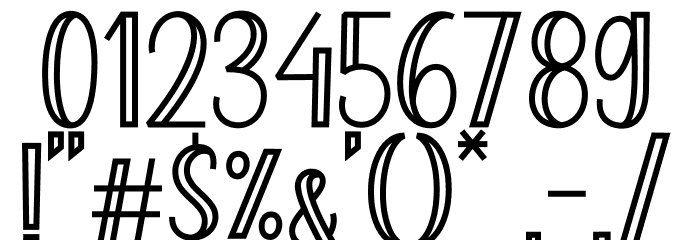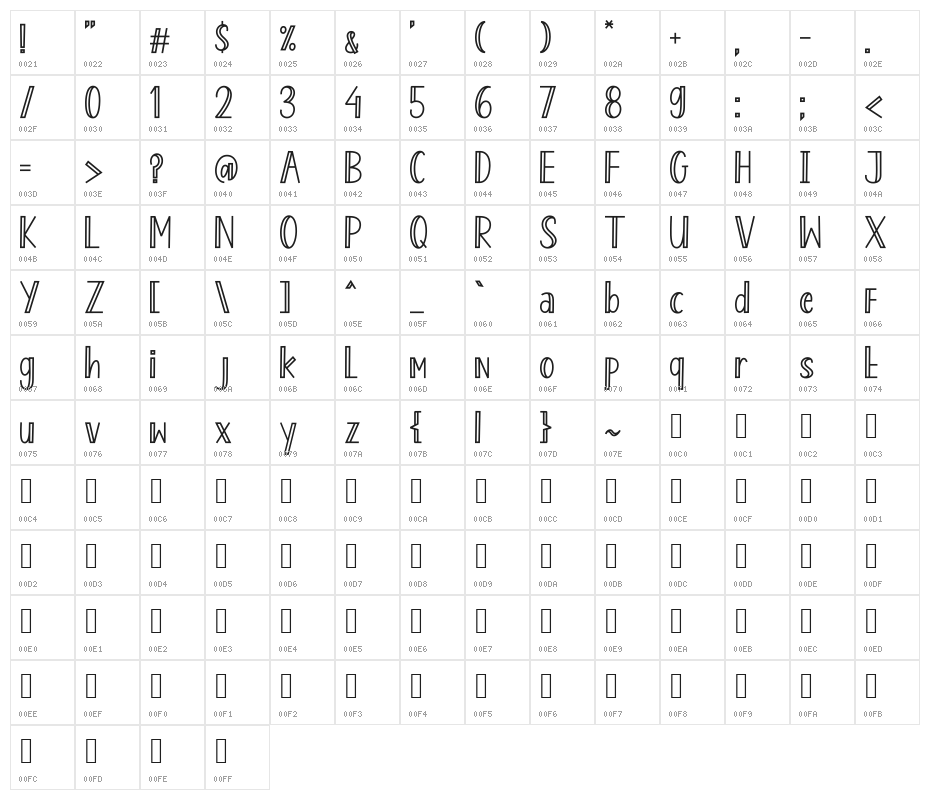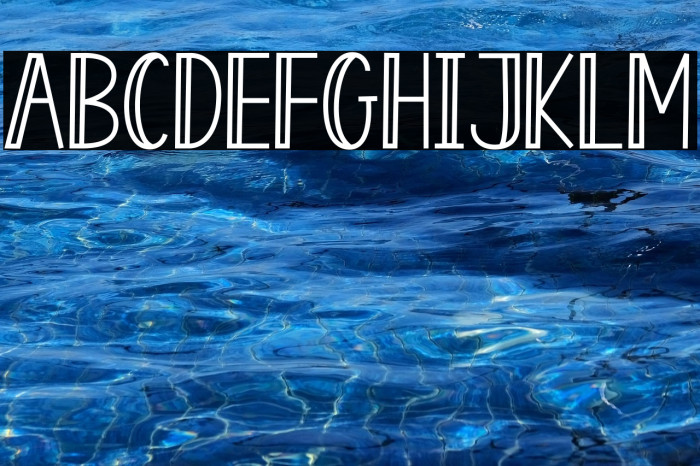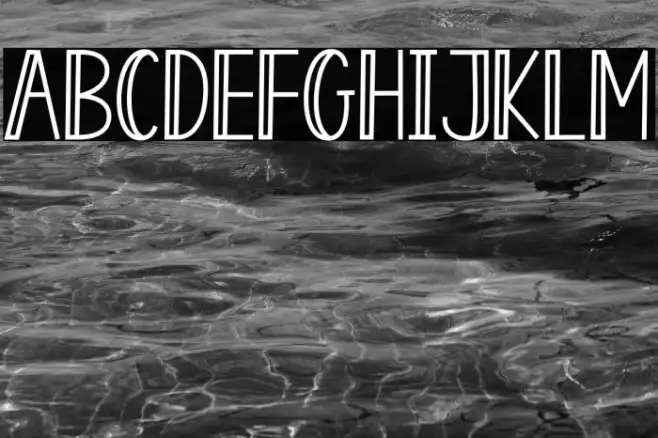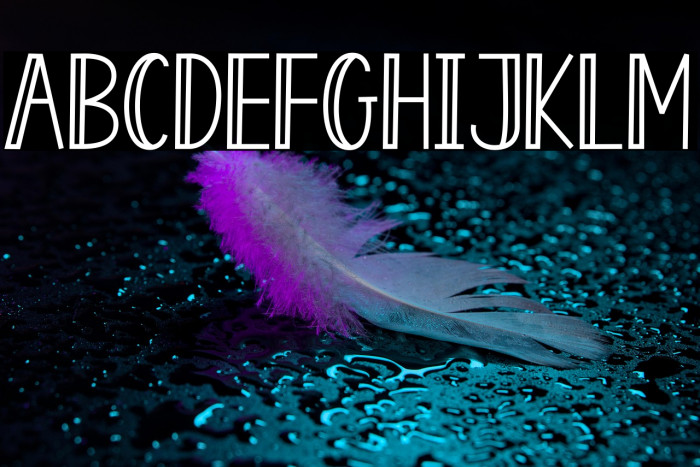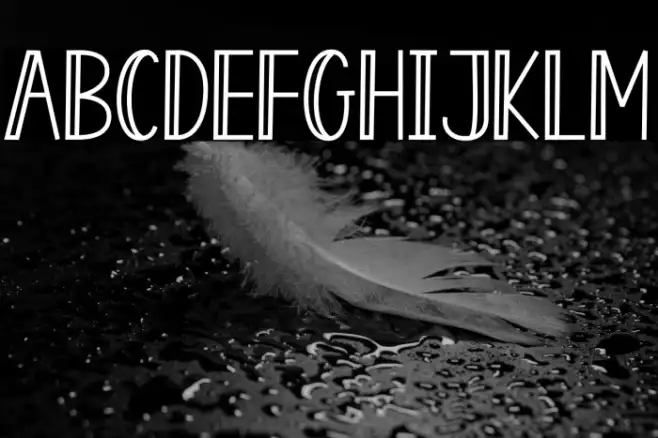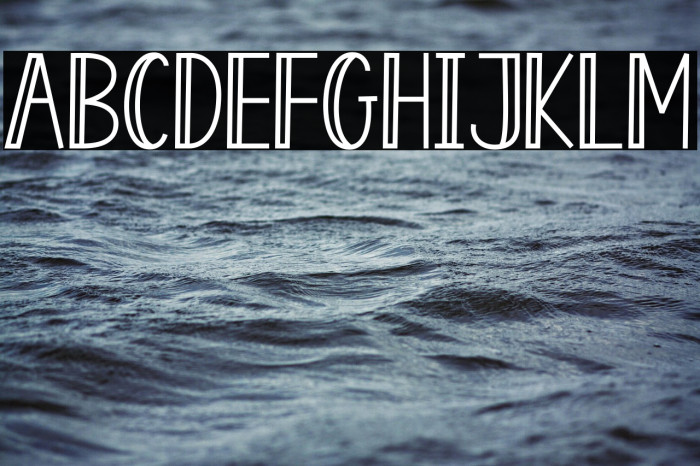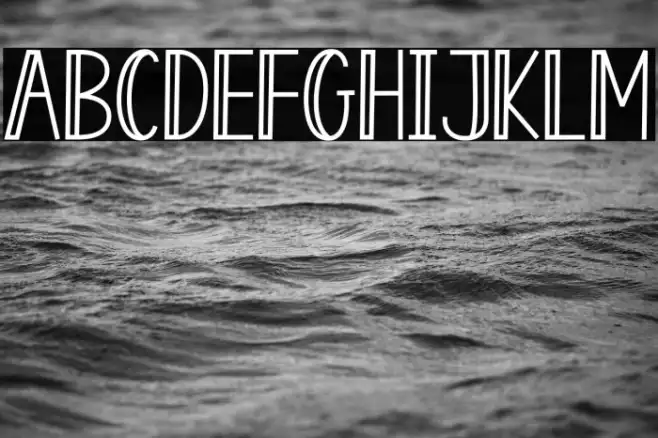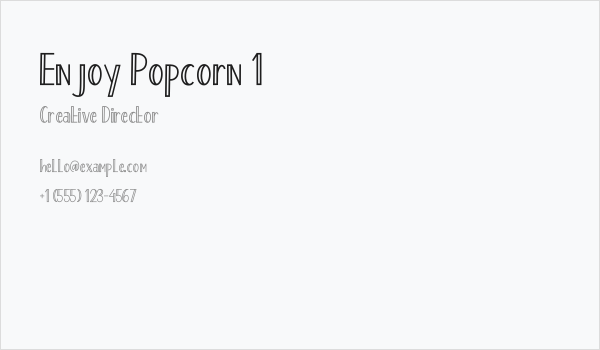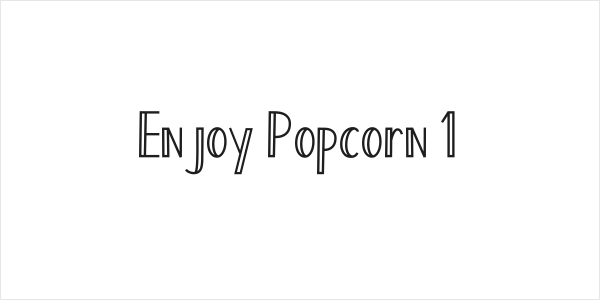
Enjoy Popcorn 1 Font
Enjoy Popcorn 1 Description
This font features a playful and whimsical design with tall, narrow characters that have a slight slant, giving it a dynamic and lively appearance. The uppercase and lowercase letters are consistent in style, with rounded edges and a hand-drawn feel. The numerals and special characters maintain the same playful aesthetic, making it suitable for creative projects. The strokes are uniform in width, providing a clean and modern look. The font's unique style is perfect for adding a touch of fun and personality to any design.
| Proposed Projects | Ideal for children's book covers, playful branding, party invitations, and creative posters. |